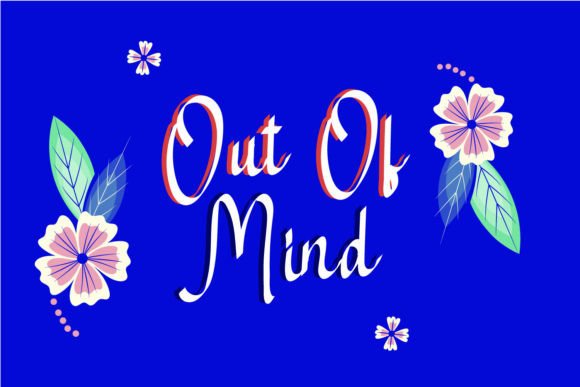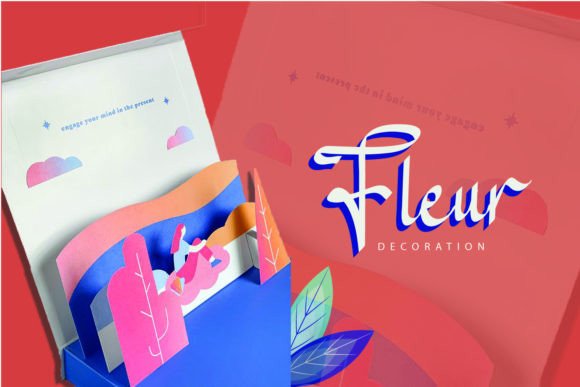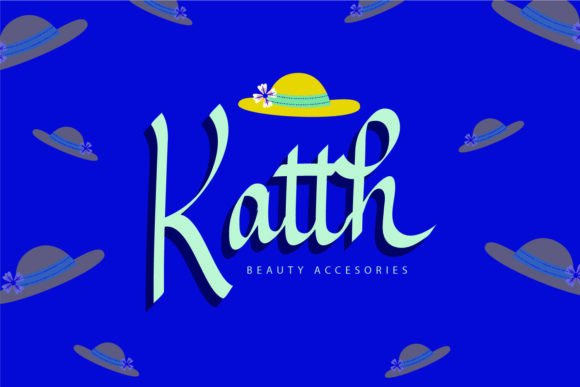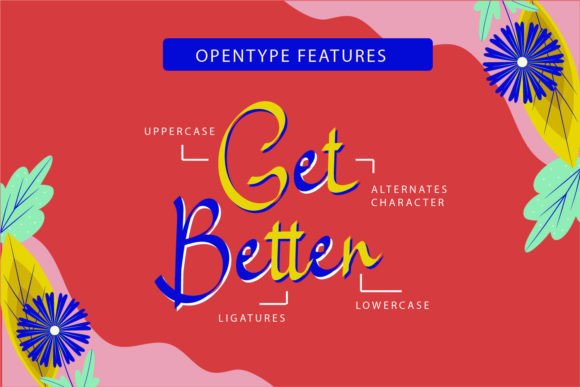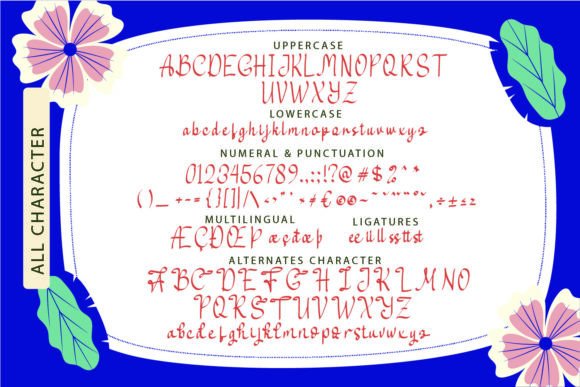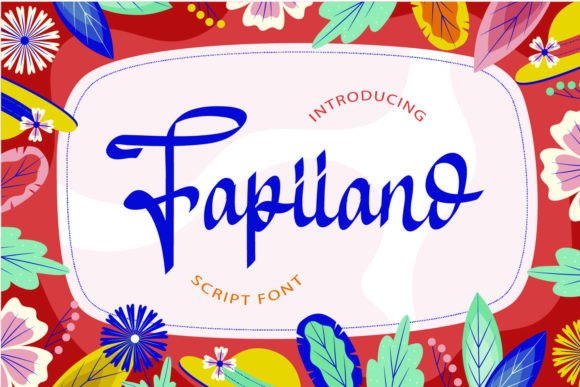
Introducing Fapiiano Font: The Epitome of Luxury and Sophistication
In the world of typography, few fonts manage to convey the essence of luxury and sophistication as effortlessly as Fapiiano. This exquisite handwritten font is a masterclass in elegance, with its intricate lines and refined curves that dance across the page. Each letter is a testament to the art of craftsmanship, making Fapiiano an exclusive and refined choice for designers and crafters seeking to elevate their projects.
The Art of Fapiiano: A Study in Elegance
Fapiiano’s design is characterized by its intricate lines and flowing curves, which imbue the font with a sense of refinement and poise. The careful attention to detail is evident in every aspect of the font, from the subtle variations in line width to the precision-crafted serifs. The result is a font that exudes luxury and sophistication, perfect for designs that require a touch of high-end elegance.
PUA Encoding: Unlocking the Full Potential of Fapiiano
One of the standout features of Fapiiano is its PUA (Private Use Area) encoding. This means that users can access a vast array of glyphs and ligatures with ease, allowing for unparalleled creative flexibility. With PUA encoding, designers can effortlessly incorporate intricate details and flourishes into their work, taking their designs to new heights of sophistication and refinement.
Applications for Fapiiano: Where Luxury Meets Creativity
Fapiiano’s versatility makes it an excellent choice for a wide range of design applications. From high-end branding and packaging to elegant stationery and wedding invitations, this font is sure to make a lasting impression. Crafters and designers can also use Fapiiano to add a touch of luxury to their handmade projects, such as bespoke jewelry, textiles, and home decor.
Branding and Packaging: Elevate Your Brand with Fapiiano
In the world of branding and packaging, Fapiiano offers a unique opportunity to create a lasting impression. With its sophisticated and refined aesthetic, this font is perfect for luxury brands seeking to convey a sense of high-end quality and exclusivity. Whether you’re designing a bespoke label, business card, or advertisement, Fapiiano is sure to elevate your brand to new heights.
Stationery and Wedding Invitations: Add a Touch of Elegance
Fapiiano is also an excellent choice for designers creating elegant stationery and wedding invitations. The font’s refined curves and intricate lines make it perfect for formal events, adding a touch of sophistication and luxury to any design. With Fapiiano, designers can create beautiful and bespoke stationery that reflects the couple’s unique style and personality.
Crafting and Handmade Projects: Bringing Luxury to Life
Crafters and makers can also benefit from Fapiiano’s luxurious aesthetic. Whether you’re creating handmade jewelry, textiles, or home decor, this font can add a touch of elegance and refinement to your projects. With Fapiiano, you can create one-of-a-kind designs that showcase your craftsmanship and attention to detail.
Conclusion: Experience the Luxury of Fapiiano
In conclusion, Fapiiano is a truly exceptional font that embodies the essence of luxury and sophistication. With its intricate lines, refined curves, and PUA encoding, this font offers designers and crafters a unique opportunity to elevate their projects and create something truly special. Whether you’re working on a high-end brand, elegant stationery, or handmade craft project, Fapiiano is the perfect choice for those seeking to add a touch of elegance and refinement.